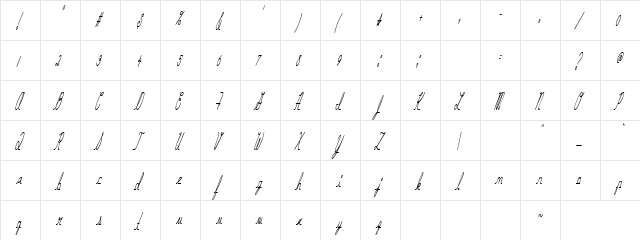
Hurontario Regular Font Preview
Hurontario Regular
Design Context for Hurontario Typeface
Hurontario is a composed and adaptable typeface that performs quietly and consistently across a wide range of design contexts.